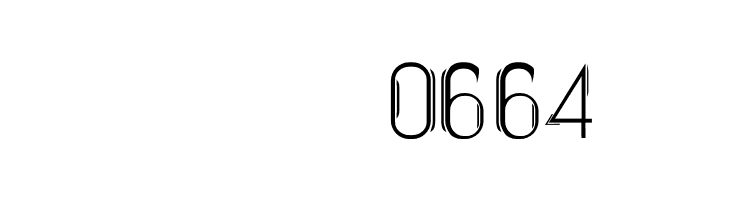
( Introducing you to a modern typeface that is contained of the double line and single line alphabets. This decorative typeface is named Twin Liner font that comes with excellent sliced double lines and it was created with the aid of Boldfonts that is famou )
A modern, dual-line font with geometric structure and decorative flair.